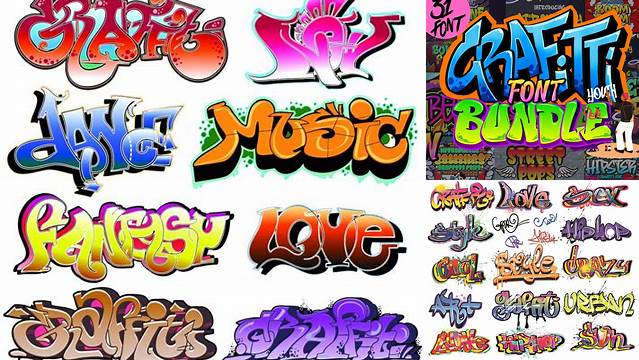
Hey guys! Ever wanted to add some serious street cred to your designs? Nothing screams urban cool quite like graffiti fonts. Luckily, you can find tons of amazing graffiti font designs out there for free download. Let's dive into the world of graffiti fonts and see how you can use them to make your projects pop!
Graffiti Fonts: The Ultimate Guide to Free Downloads
Alright, let's get the ball rolling! This comprehensive guide will walk you through everything you need to know about finding and using graffiti fonts for free. We’ll cover where to find them, how to use them, and even give you some design tips to make sure your work stands out. So, buckle up and get ready to unleash your inner street artist!
Identifying High-Quality Free Graffiti Fonts
Not all free fonts are created equal. Some might look cool at first glance, but when you start using them, you realize they're poorly designed or incomplete. So, how do you spot the gems? Look for fonts with clean lines, consistent character designs, and a full character set (including uppercase, lowercase, numbers, and punctuation). A little bit of research goes a long way in finding high-quality graffiti fonts.
Types of Graffiti Fonts and Their Uses
Graffiti fonts aren't just one-size-fits-all. There's a whole spectrum of styles, each with its own vibe and best use cases. Let's explore some of the most popular types and how you can incorporate them into your designs.
Wildstyle Graffiti Fonts
Wildstyle is the king of complexity in the graffiti world. These fonts are characterized by their intricate, interlocking letterforms and often illegible designs. They're perfect for creating eye-catching headers, posters, and anything that needs a serious dose of urban edge. But a word of caution: Wildstyle fonts can be tricky to read, so use them sparingly and strategically.
Throw-Up Graffiti Fonts
Throw-up fonts are all about speed and simplicity. They typically feature rounded, bubble-like letters that are quick to paint. These fonts are great for projects where you want a bold, impactful look without the fuss. Think event flyers, social media graphics, and even logo designs.
Tag Graffiti Fonts
Tag fonts mimic the handwritten signatures of graffiti artists. They're raw, personal, and full of attitude. Use them to add a personal touch to your designs, such as quotes, signatures, or even website headers. They’re super versatile and can give your work that authentic street art feel.
Block Graffiti Fonts
Block fonts are bold and geometric, with strong lines and sharp angles. They're highly legible and perfect for headlines, titles, and anything that needs to grab attention. These fonts are a great choice when you need something that’s both impactful and easy to read.
3D Graffiti Fonts
Want to add some depth to your designs? 3D graffiti fonts are the way to go. These fonts create the illusion of three-dimensionality, making your text pop off the page. They're awesome for posters, album covers, and anything where you want to make a statement.
Designing with Graffiti Fonts: Tips and Tricks
Okay, you've got your fonts. Now what? Using graffiti fonts effectively requires a bit of know-how. Here are some tips and tricks to help you create stunning designs that truly capture the essence of street art.
Pairing Graffiti Fonts with Other Fonts
Graffiti fonts are bold and expressive, so pairing them with the right fonts is crucial. Generally, it’s best to pair them with simpler, more legible fonts like sans-serifs or clean serifs. This creates a nice contrast and ensures your overall design remains balanced. Think about using a graffiti font for a headline and a simpler font for the body text.
Using Color and Effects to Enhance Graffiti Fonts
Color can make or break a design, especially when working with graffiti fonts. Bold, vibrant colors are a natural fit for the graffiti aesthetic. Consider using gradients, shadows, and outlines to add depth and dimension. Experiment with different color combinations to find what works best for your project. A little bit of creativity can go a long way!
Creating Realistic Graffiti Effects in Digital Design
Want to make your digital graffiti fonts look like they were painted on a wall? There are several techniques you can use to achieve this effect. Try adding textures, such as brick or concrete, as a background. Use layer styles in Photoshop or similar software to create drop shadows, bevels, and other effects that mimic the look of real graffiti. Don't be afraid to experiment and have fun with it!
Avoiding Common Mistakes When Using Graffiti Fonts
Graffiti fonts are powerful, but they can also be misused. One common mistake is overusing them. Too much graffiti can make your design look cluttered and overwhelming. Another mistake is choosing a font that’s too illegible. While some graffiti fonts are intentionally difficult to read, you still want your message to be clear. And finally, make sure your font choice matches the tone of your project. A wildstyle font might not be the best choice for a corporate brochure, for example.
Graffiti Fonts for Different Design Projects
Graffiti fonts are incredibly versatile and can be used in a wide range of design projects. Let's explore some specific applications and how you can leverage graffiti fonts to achieve your design goals.
Graffiti Fonts for Posters and Flyers
Posters and flyers are a natural fit for graffiti fonts. These fonts can instantly grab attention and create a sense of energy and excitement. Use bold, eye-catching fonts for headlines and key messages. Combine them with vibrant colors and dynamic layouts to create posters that truly stand out.
Graffiti Fonts for Logos and Branding
Want your brand to have a rebellious, edgy vibe? Graffiti fonts can be a great choice for logos and branding materials. However, it’s essential to choose a font that’s legible and reflects your brand’s personality. Consider using a custom-designed graffiti font for a truly unique look.
Graffiti Fonts for Website Design
Graffiti fonts can add a cool, urban touch to website designs. Use them sparingly, perhaps for headlines or call-to-action buttons. Make sure the font is easy to read on screen and doesn’t clash with the overall design aesthetic. A subtle use of graffiti can make your website more memorable and engaging.
Graffiti Fonts for Social Media Graphics
Social media is all about grabbing attention, and graffiti fonts can help you do just that. Use them in your posts, stories, and profile pictures to create a bold, eye-catching look. Experiment with different styles and effects to see what resonates with your audience.
Graffiti Fonts for T-Shirt Designs
T-shirt designs are another perfect canvas for graffiti fonts. They can add a cool, street-style vibe to your apparel. Use bold fonts for impactful slogans or graphics. Consider adding distressed effects to give your designs a worn-in, vintage feel.
How to Install and Manage Graffiti Fonts
Alright, you've downloaded some awesome fonts. Now, how do you actually use them? Installing and managing fonts is pretty straightforward, but it's good to know the basics. Let's break it down.
Installing fonts on Windows is super easy. Just download the font file (usually a .ttf or .otf file), right-click on it, and select "Install." Windows will automatically install the font, and it will be available in all your applications. Alternatively, you can copy the font files to the Fonts folder in your Windows directory.
On macOS, you can install fonts by double-clicking the font file and clicking the "Install Font" button in the Font Book app. You can also drag and drop font files into the Font Book app or the Fonts folder in your Library directory. It's super intuitive, just like most things on a Mac!
Organizing Your Font Library
If you’re anything like me, you might end up with a massive collection of fonts. To keep things organized, it’s a good idea to use a font management tool. Apps like FontBase or NexusFont can help you organize, preview, and activate fonts. This makes it much easier to find the perfect font for your project.
Sometimes, fonts can be a bit finicky. You might encounter issues like fonts not showing up in your applications or fonts displaying incorrectly. Usually, restarting your computer or clearing your font cache can resolve these problems. If you’re still having trouble, check the font file for corruption or try reinstalling the font.
Creating Your Own Graffiti Font
Feeling ambitious? Why not try creating your own graffiti font? It's a fun and creative way to express your artistic vision. Here’s a quick rundown of the process.
Sketching Your Graffiti Font Design
Start by sketching out your letterforms on paper. Experiment with different styles and shapes. Think about the overall vibe you want your font to convey. Do you want it to be wild and chaotic, or clean and legible? Sketching is the foundation of a great font, so take your time and have fun with it.
Digitizing Your Font Using Font Design Software
Once you’re happy with your sketches, it’s time to digitize your font. Software like FontLab Studio, Glyphs, or even free options like BirdFont can help you turn your sketches into digital fonts. These tools allow you to create precise outlines, adjust spacing, and add all the details that make your font unique.
Tips for Designing a Unique Graffiti Font
Creating a unique font is all about originality. Think about what makes your font stand out. Maybe it’s the unusual letterforms, the bold strokes, or the intricate details. Experiment with different techniques and effects. Don’t be afraid to break the rules and push the boundaries. The best graffiti fonts are the ones that have a distinct personality.
Selling Your Graffiti Font Designs Online
If you’ve created a killer font, why not sell it online? Platforms like Creative Market, MyFonts, and FontSpring are great places to showcase your work and reach a wider audience. Make sure to create a compelling presentation for your font, including previews and usage examples. You never know, your font might be the next big thing!
Graffiti Font Generators and Online Tools
Don't have the time or skills to create your own font from scratch? No worries! There are plenty of graffiti font generators and online tools that can help you create cool-looking text in seconds.
Overview of Popular Graffiti Font Generators
Online font generators are super handy for quick designs. Sites like GraffWriter and Cool Text offer a variety of graffiti font styles that you can customize with different colors, effects, and backgrounds. These tools are perfect for creating social media graphics, headers, or anything that needs a quick dose of graffiti flair.
How to Use Online Tools to Create Graffiti Text
Using these tools is usually pretty straightforward. Just type in your text, choose a font style, and customize the colors and effects to your liking. Most generators will let you download the image as a PNG or JPG file, which you can then use in your projects. It's a fast and easy way to add some graffiti flavor to your designs.
Limitations of Using Font Generators
While font generators are convenient, they do have some limitations. The font options might be limited, and you might not have as much control over the design as you would with a dedicated font editor. Also, be mindful of the licensing terms. Some generators might not allow commercial use of the generated images. So, use them wisely and always check the fine print.
When to Use a Font Generator vs. a Downloaded Font
Font generators are great for quick, one-off projects, like a social media post or a flyer for a local event. Downloaded fonts, on the other hand, are better for projects where you need more control and consistency, such as branding materials or website design. Think of generators as a quick fix and downloaded fonts as a long-term solution.
The History and Evolution of Graffiti Fonts
Graffiti fonts have a rich history, evolving from the streets of Philadelphia and New York City in the late 1960s and early 1970s. Understanding the history can give you a deeper appreciation for the art form and inspire your own designs.
The Origins of Graffiti and Street Art
Graffiti started as a form of self-expression and communication, with early writers using tags and throw-ups to mark their territory. Over time, it evolved into a more complex art form, with writers developing their own unique styles and techniques. Street art, a broader category that includes graffiti, encompasses a wide range of artistic expressions in public spaces.
The Development of Different Graffiti Styles
From simple tags to elaborate wildstyle pieces, graffiti has seen a remarkable evolution in styles. Each style has its own characteristics and techniques. Understanding these styles can help you choose the right font for your project and create designs that are authentic and impactful.
The Influence of Graffiti on Typography and Design
Graffiti has had a significant impact on typography and design, inspiring countless fonts and design trends. Its bold, expressive style has been adopted by designers across various industries, from fashion to music to advertising. Graffiti fonts bring an urban edge to any project, making it stand out from the crowd.
The Future of Graffiti Fonts in Design
As design trends continue to evolve, graffiti fonts will likely remain a popular choice for adding a touch of urban cool. With new technologies and techniques, we can expect to see even more innovative and creative ways to use graffiti in design. The future of graffiti fonts is bright, and there’s plenty of room for experimentation and innovation.
So there you have it, guys! Everything you need to know about graffiti fonts and where to find them for free. Whether you’re designing a poster, a logo, or a social media graphic, graffiti fonts can add a unique and edgy touch to your work. Just remember to choose the right font for your project, use it sparingly, and always respect the art form. Now go out there and create some amazing designs!